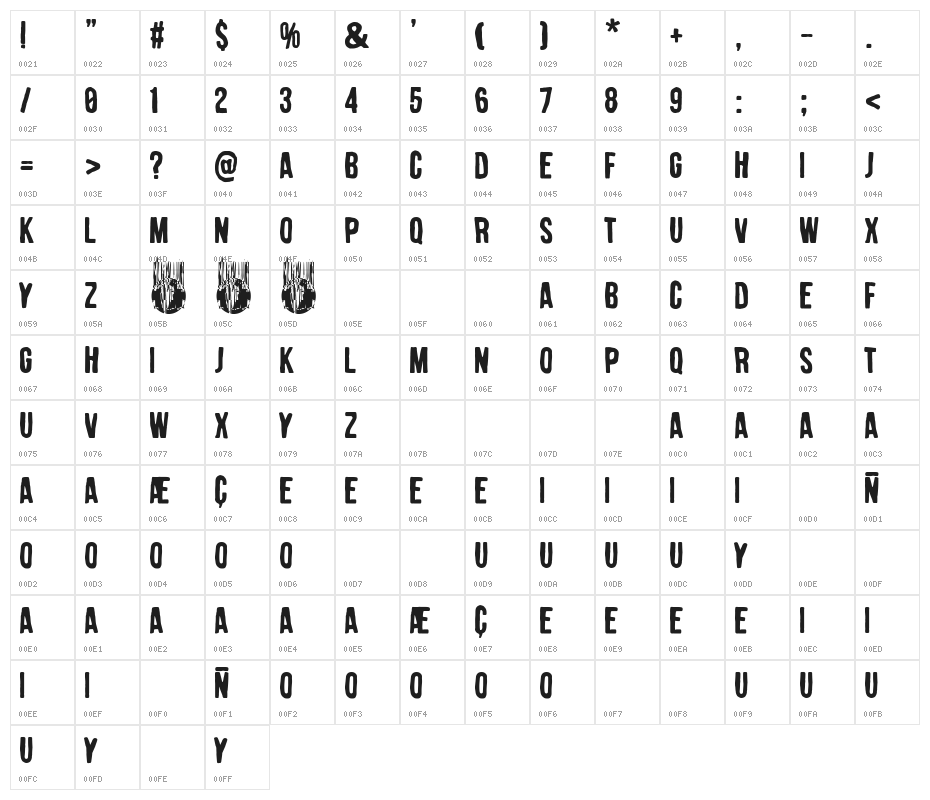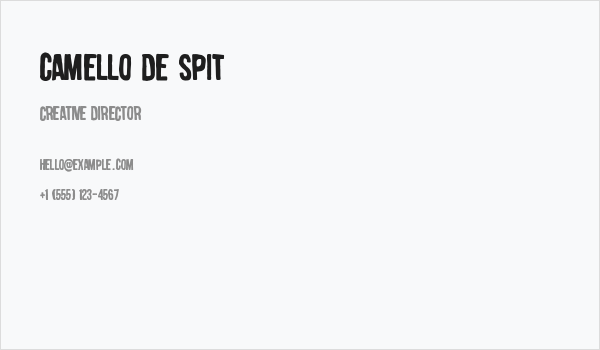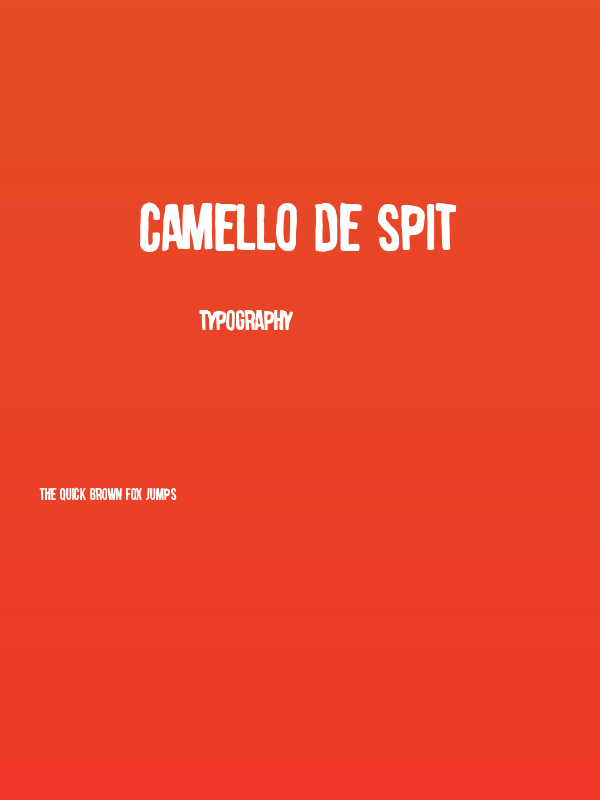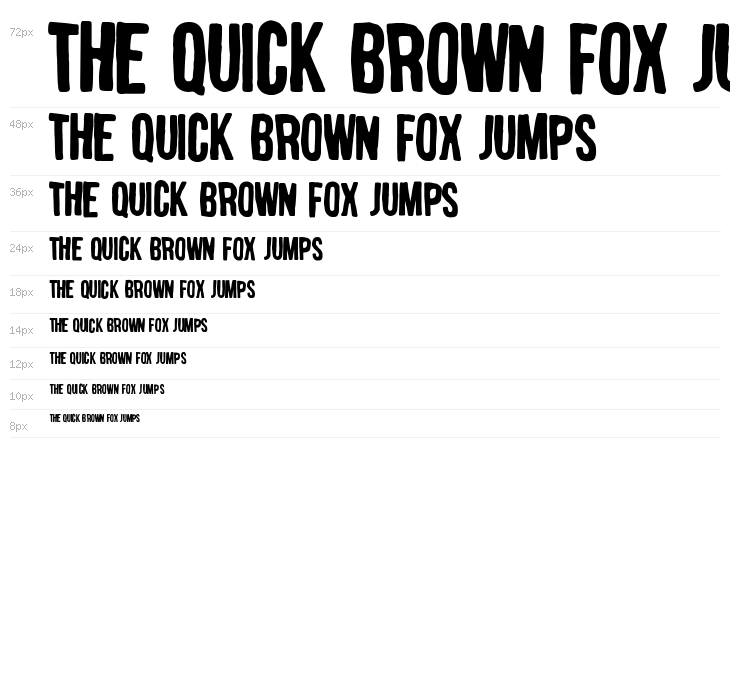
camello de spit Font
camello de spit Description
This font features a bold and playful design with a hand-drawn aesthetic. The characters are thick and slightly irregular, giving them a lively and dynamic appearance. The uppercase letters are prominent and stand out with their robust form, while the lowercase letters maintain a consistent style that complements the uppercase. The numbers are equally bold, ensuring readability and impact. Special characters are included, maintaining the same energetic style. This font is ideal for projects that require a fun and engaging look, such as posters, children's books, or branding for creative industries.
| Overall Style | Playful, Hand-drawn |
| Proposed Projects | Ideal for posters, children's books, creative branding, and playful designs. |